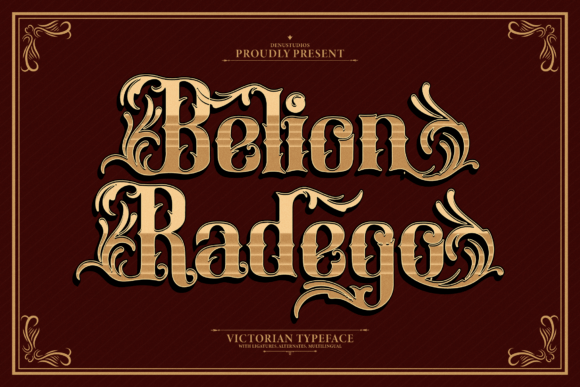
Introducing Belion Radego Font: A Timeless Victorian Typeface for Elegant Designs
In the world of typography, few fonts manage to capture the essence of Victorian elegance while also exuding a sense of grandeur. Belion Radego, however, achieves this with remarkable finesse. This bold and intricate typeface is a perfect blend of ornate details, flowing flourishes, and vintage-inspired style, making it an ideal choice for designers looking to infuse their projects with a luxurious and classic aesthetic.
The Essence of Victorian Elegance
Belion Radego is more than just a font; it’s an experience. It transports you back to the Victorian era, a time known for its opulence, intricate designs, and grandeur. This typeface embodies the spirit of that era, offering a rich, textured feel that is both nostalgic and sophisticated. With its bold lines, intricate flourishes, and classic letterforms, Belion Radego brings a sense of history and tradition to your designs.
Key Features of Belion Radego
- Ornate Details: The font is rich in ornate details, from the intricate serifs to the elegant flourishes. Each character is designed to add a touch of luxury and sophistication to your designs.
- Flowing Flourishes: Belion Radego features beautiful, flowing flourishes that add a dynamic and artistic touch to your text. These flourishes can be used to create a sense of movement and elegance in your designs.
- Vintage-Inspired Style: The font’s vintage-inspired style is reminiscent of the Victorian era, making it perfect for projects that require a classic, timeless look.
- Ligatures and Alternates: Belion Radego includes a range of ligatures and alternates, allowing you to customize your text and create unique, visually appealing designs.
- Multilingual Support: The font offers multilingual support, making it versatile and suitable for a wide range of projects.
Ideal for a Variety of Projects
Belion Radego’s versatility makes it suitable for a wide range of design projects. Here are some of the areas where this font truly shines:
- Packaging: Add a touch of luxury to your product packaging with Belion Radego. Its bold, elegant style ensures that your products stand out on store shelves.
- Branding: Create a lasting impression with your brand identity. Belion Radego’s sophisticated and classic aesthetic makes it perfect for logos, letterheads, and other branding materials.
- Book Covers: Give your book covers a vintage, timeless look with Belion Radego. Its ornate details and flowing flourishes make it ideal for fiction, history, and classic literature covers.
- Posters: Whether you’re designing a poster for a historical event, a luxury product, or a theatrical performance, Belion Radego’s dramatic flair and elegance ensure that your poster stands out.
- Historical-Themed Designs: For projects that require a historical touch, such as documentaries, historical dramas, or museum exhibitions, Belion Radego provides an authentic Victorian feel.
Why Choose Belion Radego?
In a world where design trends come and go, Belion Radego stands out as a timeless choice. Here are a few reasons why you should consider this font for your next project:
- Sophistication: Belion Radego brings a level of sophistication to your designs that is hard to achieve with more modern fonts.
- Versatility: With its ligatures, alternates, and multilingual support, Belion Radego is highly customizable, making it suitable for a wide range of projects.
- Dramatic Flair: The font’s bold, intricate style adds a dramatic flair to your designs, making them more engaging and memorable.
- Timeless Appeal: Unlike trendy fonts that may quickly become outdated, Belion Radego’s classic aesthetic ensures that your designs remain timeless and relevant.
Belion Radego is a bold and intricate Victorian typeface that brings a sense of grandeur and timeless elegance to your designs. Its ornate details, flowing flourishes, and vintage-inspired style make it perfect for projects that demand a luxurious and classic aesthetic. Whether you’re working on packaging, branding, book covers, posters, or historical-themed designs, Belion Radego combines sophistication with a dramatic flair. Its ligatures, alternates, and multilingual support make it versatile and highly customizable. Choose Belion Radego for your next project and experience the beauty of Victorian typography in your designs.